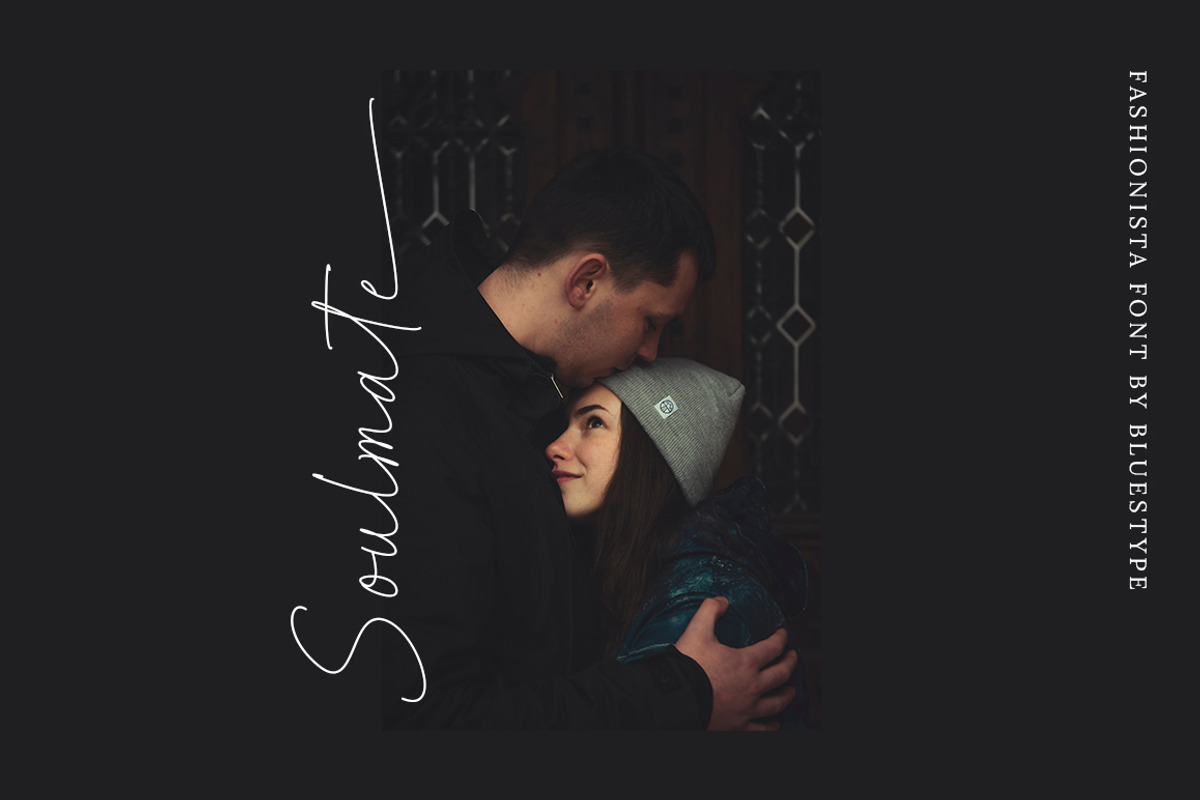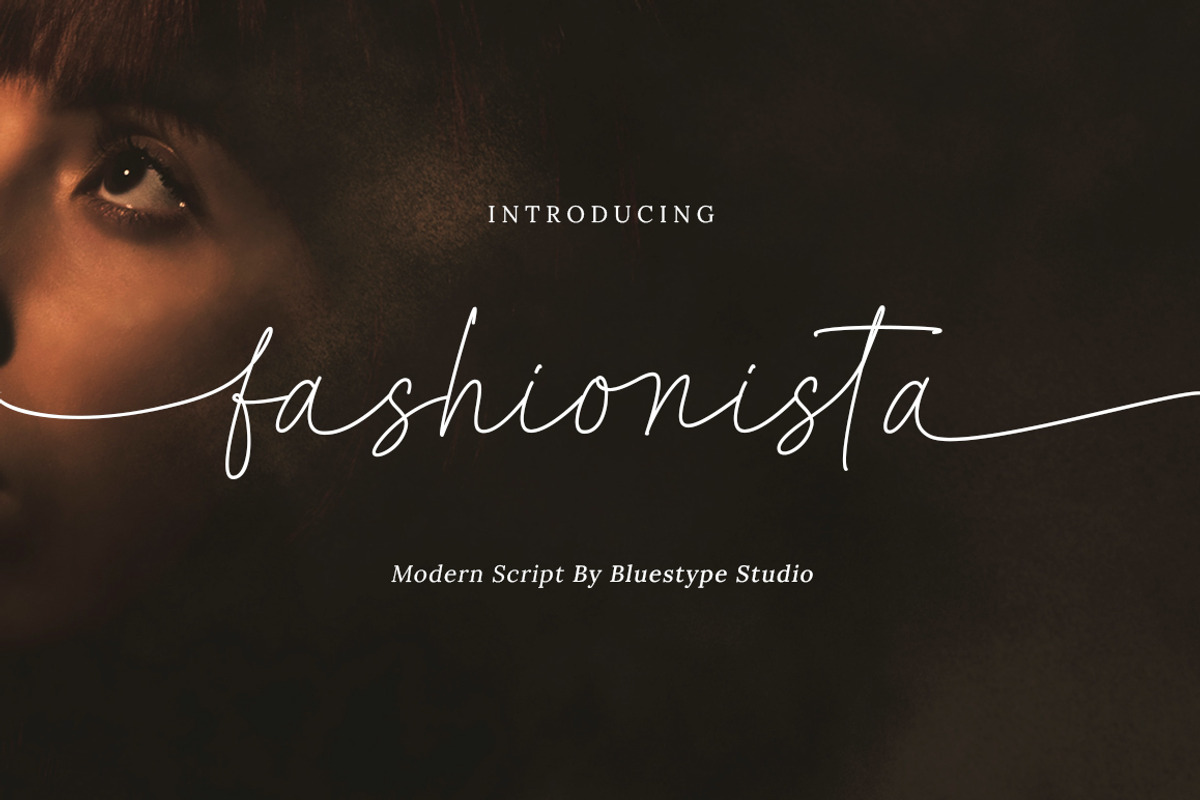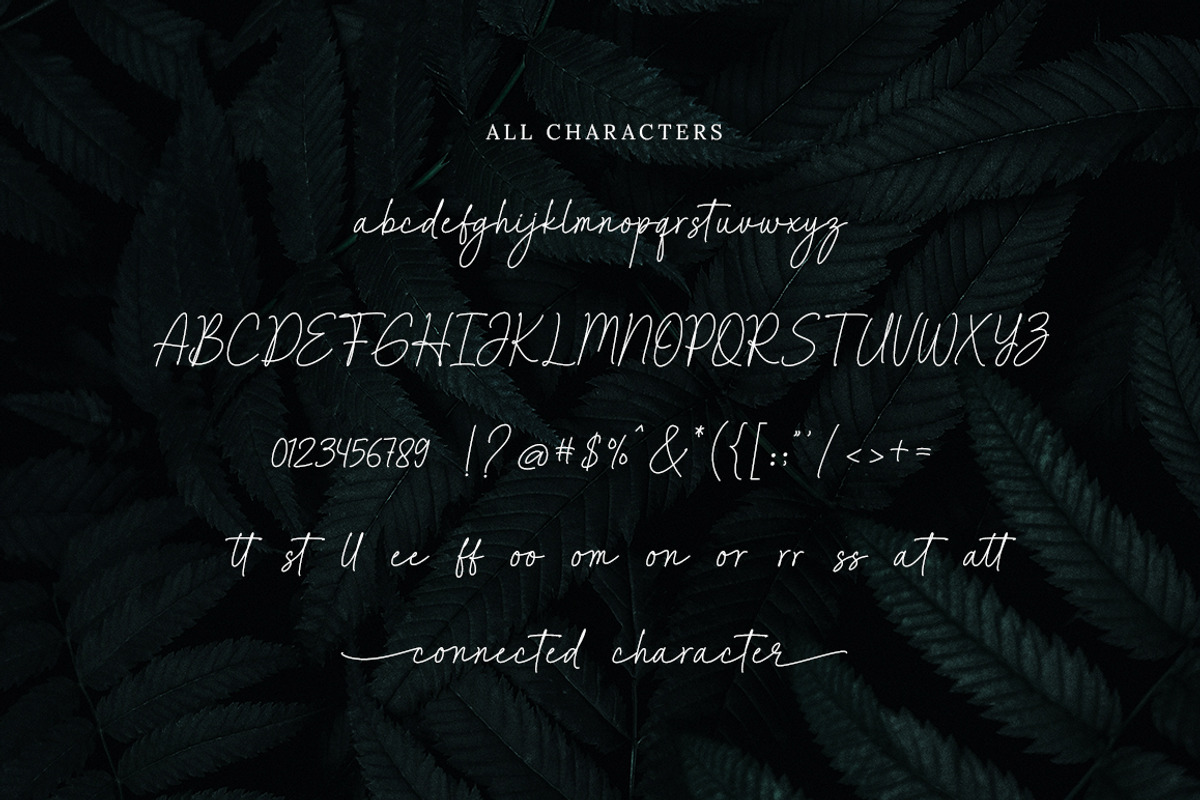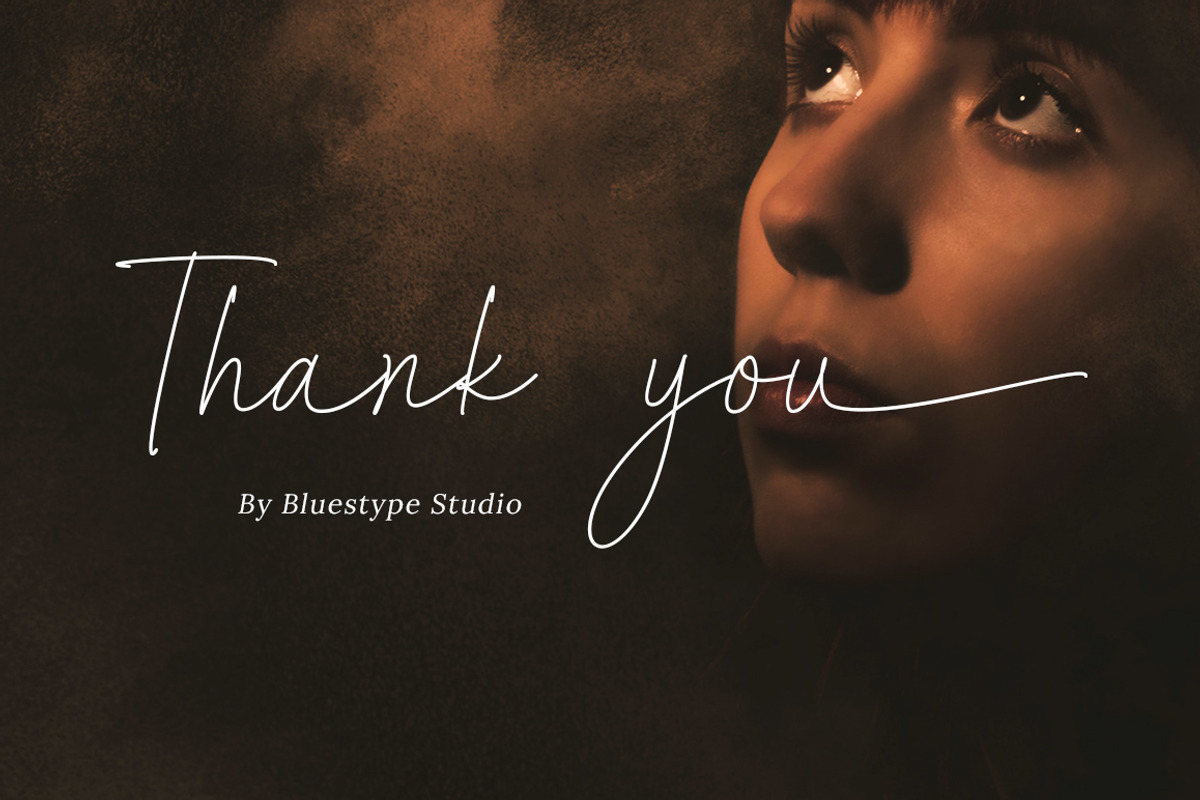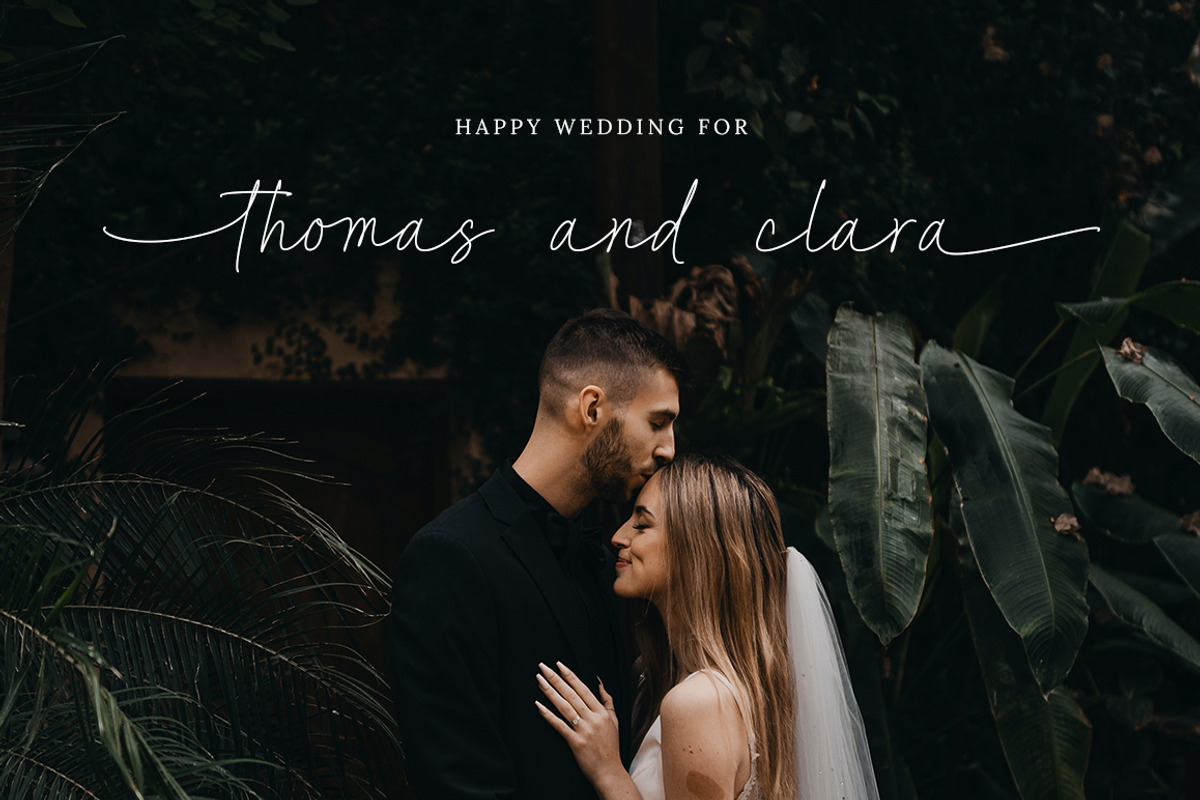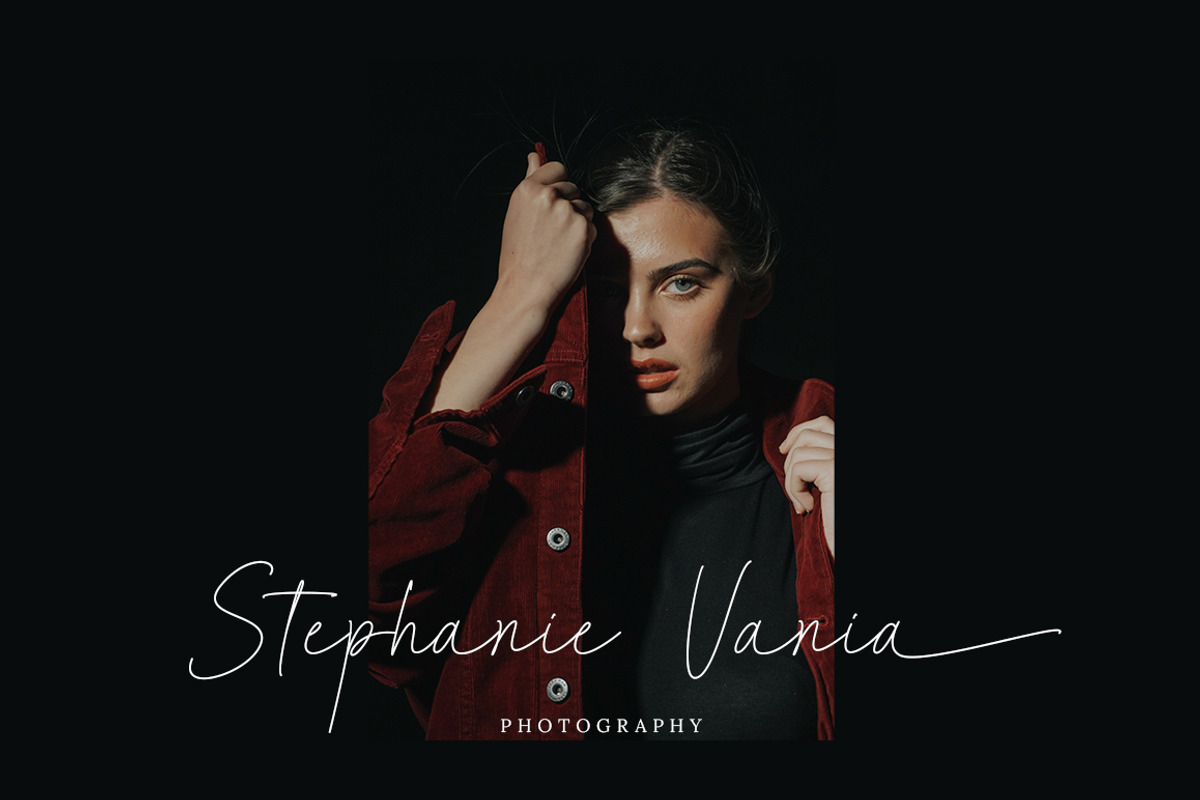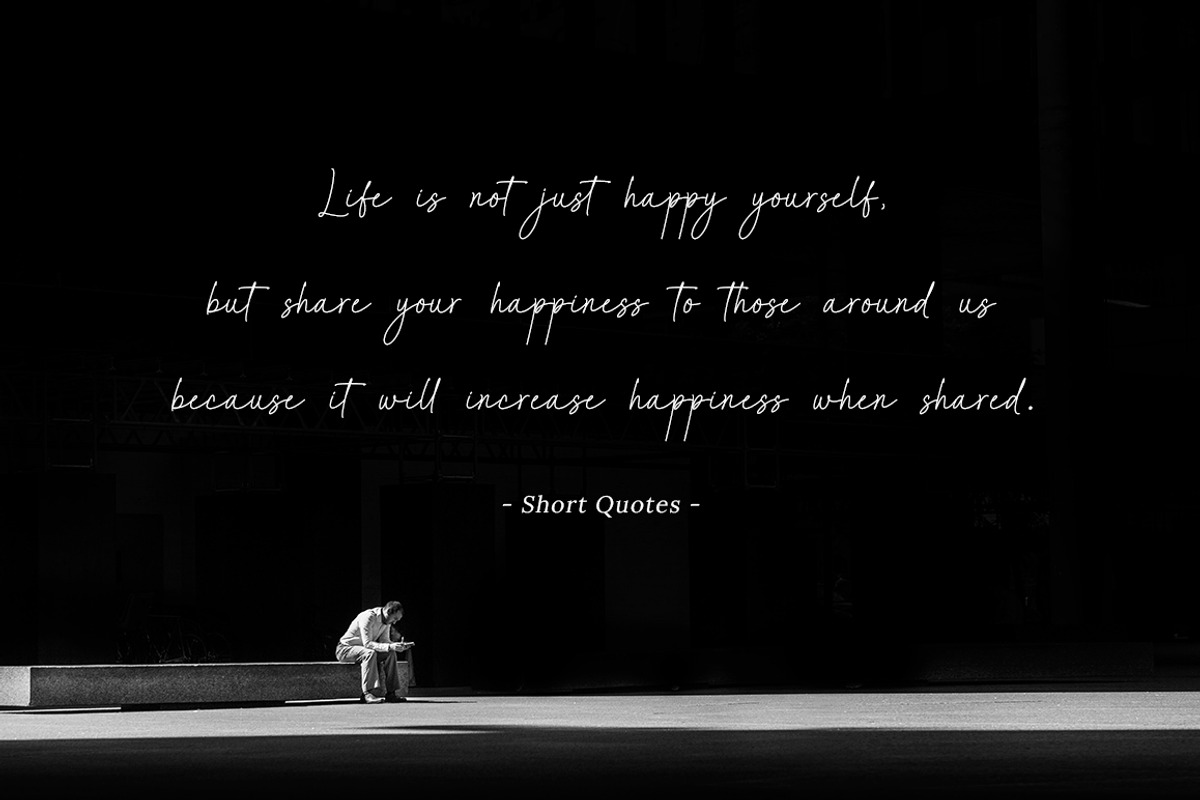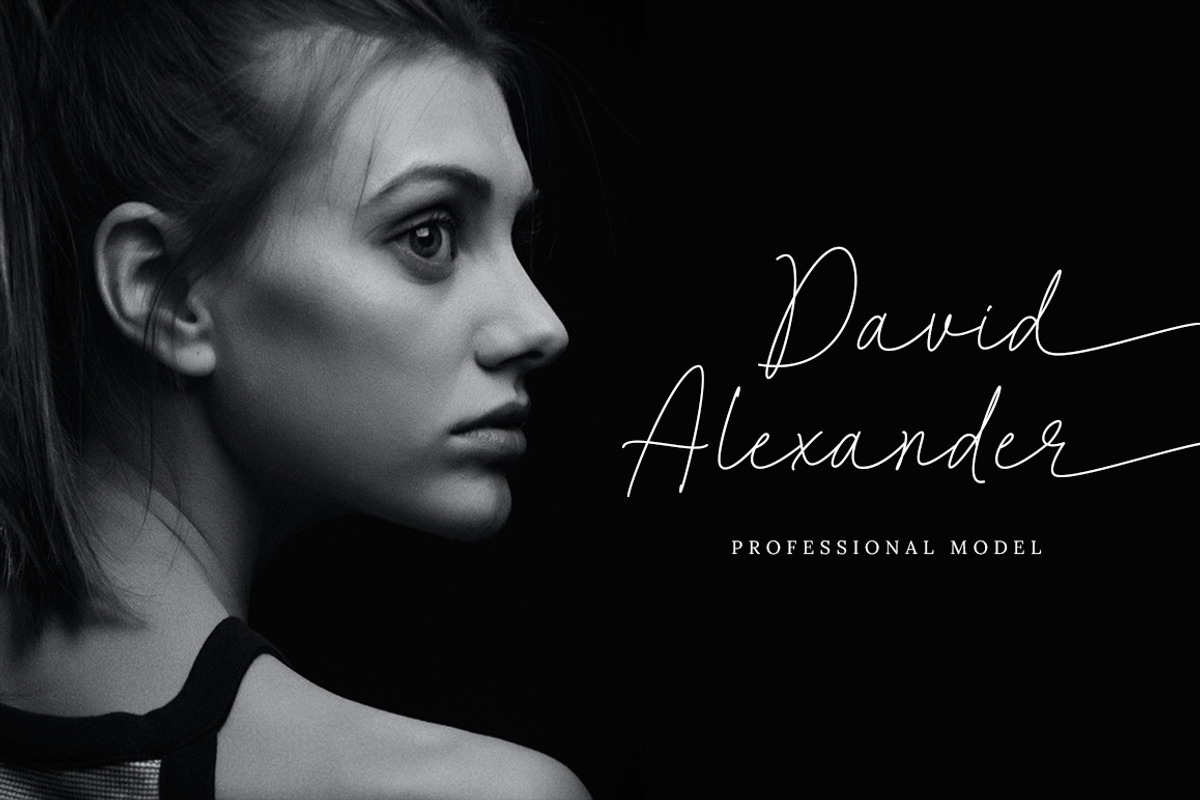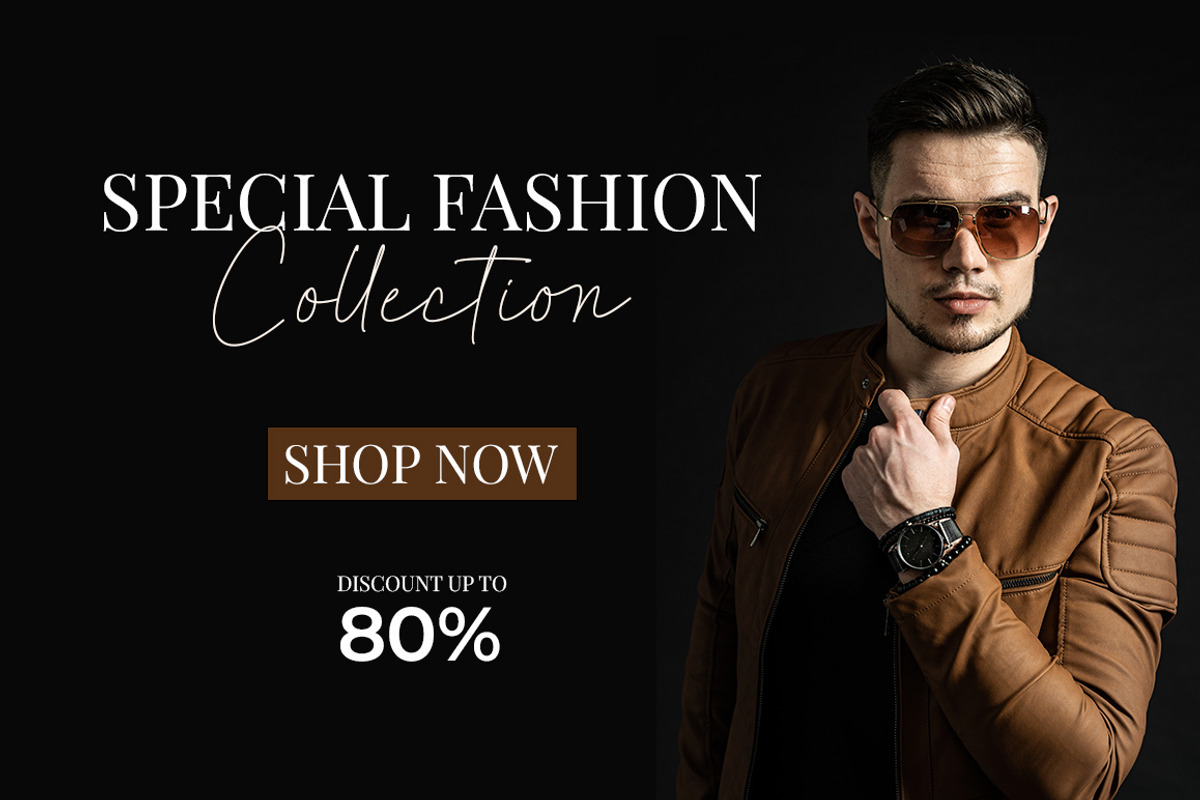
fashionista - modern script font
Introducing Fashionista - Modern Script Font
Fashionista is a font that has a modern and elegant shape with a luxurious feel and is made with very neat handwriting, so use all the features of this font to make your design look attractive!
This font is perfect for use on branding, weddings, bussines card, logotype, magazines, quotes, fashion, watermarks, invitations, social media post, website.
- Stylistic Set
- Number & Punctuation
- Support Multilingual Languange